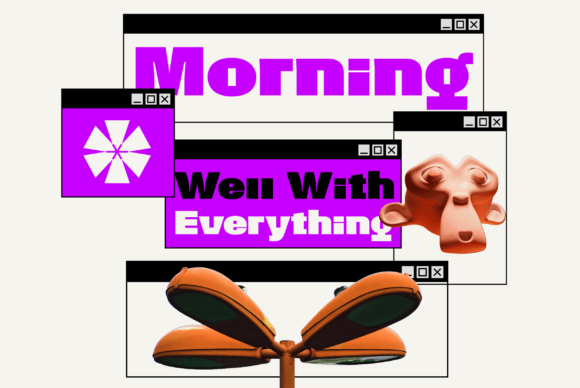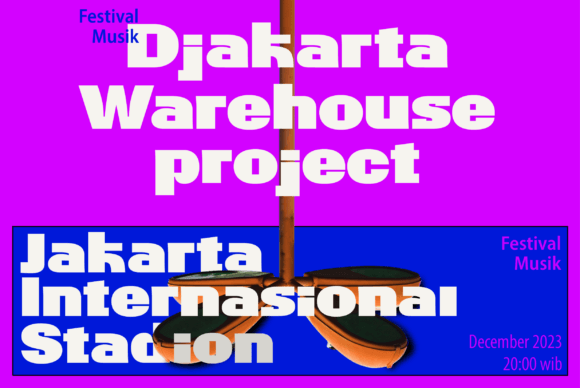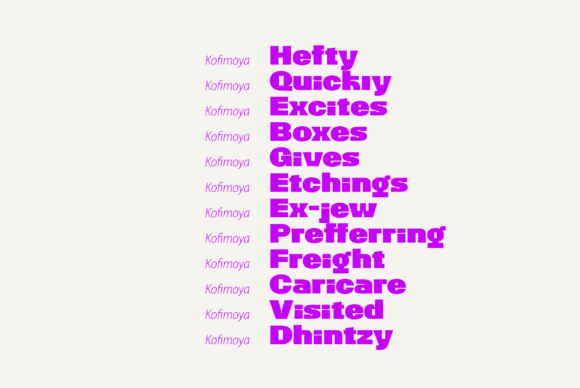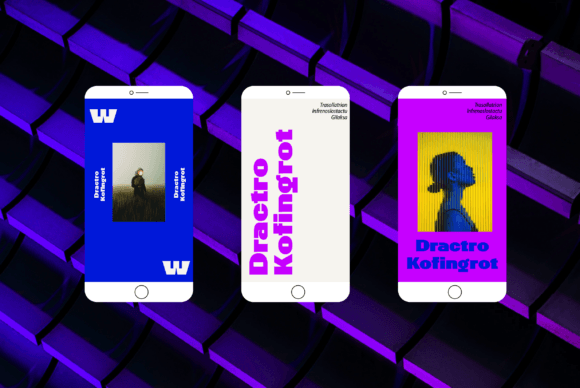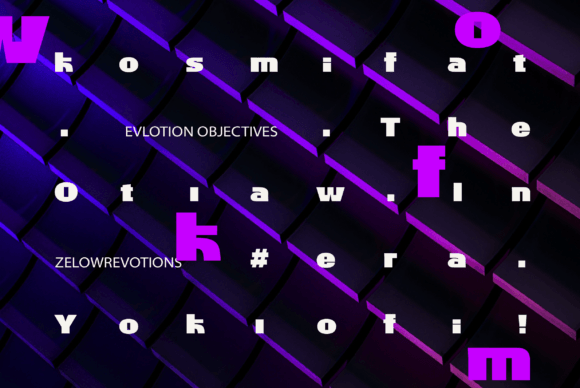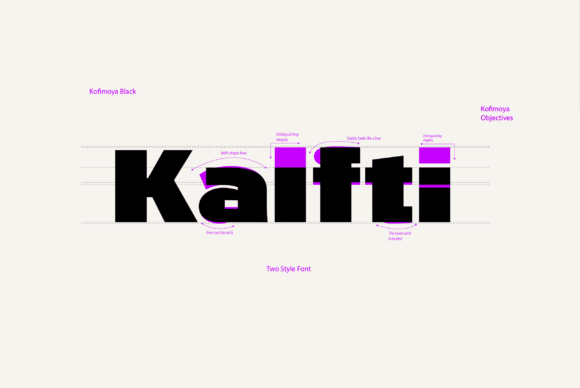
Introduction to Kofimoya Font
Kofimoya is a brand-new font that offers two distinct styles to choose from.
The first style features a stiffer sans concept with a somewhat square shape, giving it a modern and assertive appearance The second style is a normal sans, with a slightly rounded shape, providing a softer and friendlier look.
Key Features of Kofimoya Font